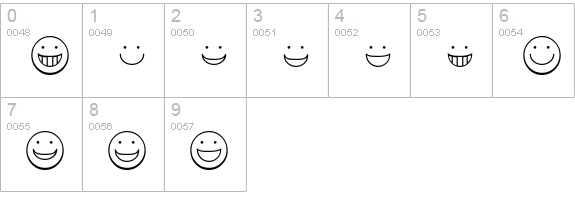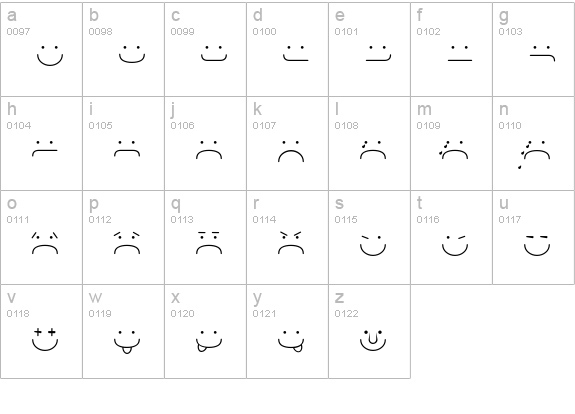
SmileyFace Font Details
Introducing SmileyFace font, a delightful and playful typeface that will bring a smile to your face with every letter. Designed with a touch of whimsy and cheer, this font is perfect for adding a lighthearted and joyful touch to your creative projects. With its rounded edges and friendly curves, SmileyFace font exudes a sense of warmth and happiness. Each character is crafted with care, capturing the essence of a cheerful smile. Whether you're designing a greeting card, creating a logo, or simply adding a touch of fun to your personal documents, this font will bring an instant burst of positivity to your work. One of the best things about SmileyFace font is that it is completely free! Yes, you read that right. You can now download this delightful font for absolutely no cost at FontsMarket.com. We believe that creativity should be accessible to everyone, and that's why we are offering this font for free, so that you can spread joy and happiness through your designs without any restrictions. SmileyFace font is available in a range of weights and styles, allowing you to customize it to suit your specific needs. Whether you prefer a bold and vibrant look or a more subtle and whimsical feel, this font has got you covered. Its versatility makes it perfect for a wide range of design projects, from children's books and posters to social media graphics and website headers. So why wait? Download SmileyFace font today, and let your creativity shine with its playful and cheerful vibe. Remember, it's free and waiting for you at FontsMarket.com. Spread smiles and happiness with every stroke of this delightful typeface.